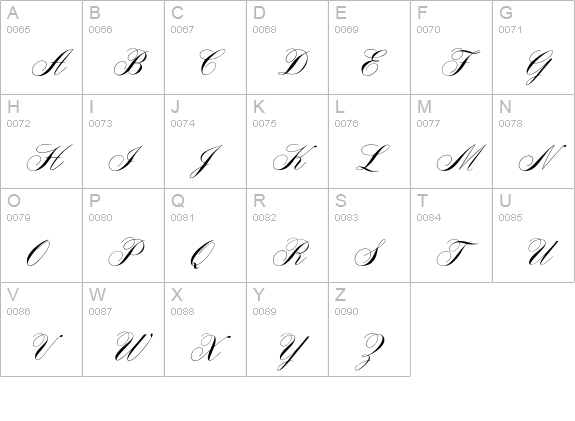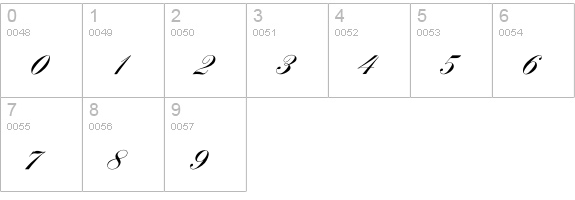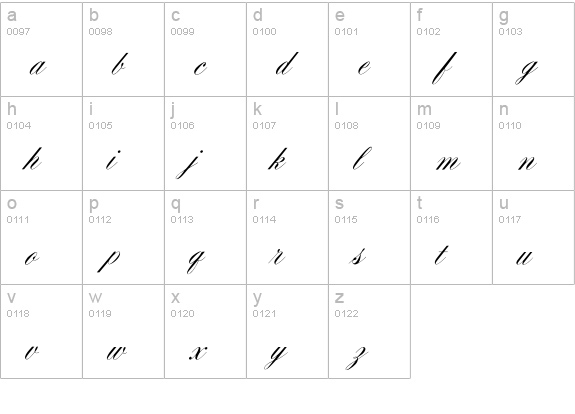
SurreyScript Font Details
SurreyScript is a stunning and elegant font that exudes sophistication and charm. Its flowing, cursive style adds a touch of class to any design project, whether it be for invitations, logos, or branding materials. With its delicate strokes and graceful curves, SurreyScript captures a sense of timeless beauty that is sure to captivate your audience. What makes SurreyScript even more appealing is that it is completely free to download. Yes, you read that right - this gorgeous font can be yours at no cost! Simply head over to FontsMarket.com to access this exquisite typeface and elevate your designs to new heights. Don't miss out on the opportunity to enhance your projects with the allure of SurreyScript - download it today and let your creativity shine!